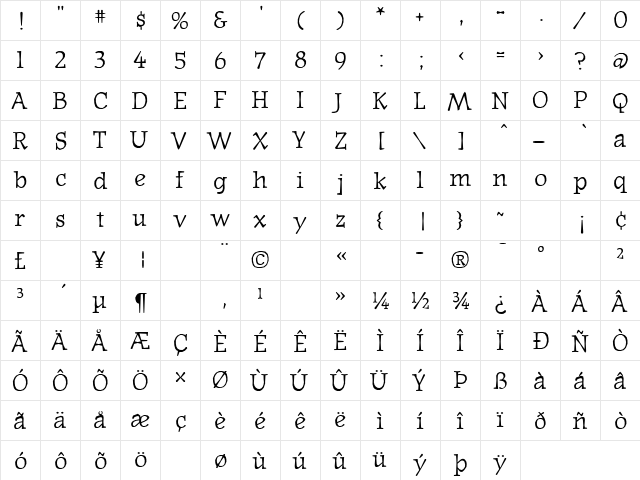
JournalTextLining Regular
Design Context for JournalTextLining Typeface
JournalTextLining is a composed and adaptable typeface that performs quietly and consistently across a wide range of design contexts.